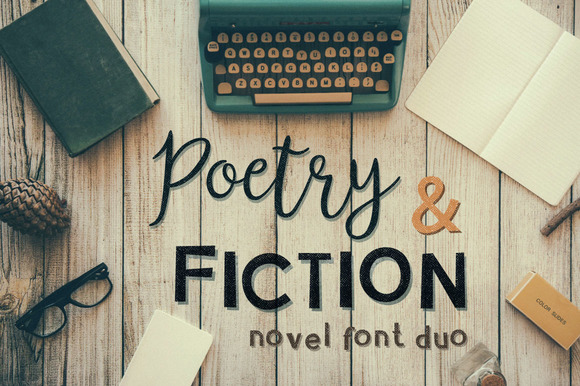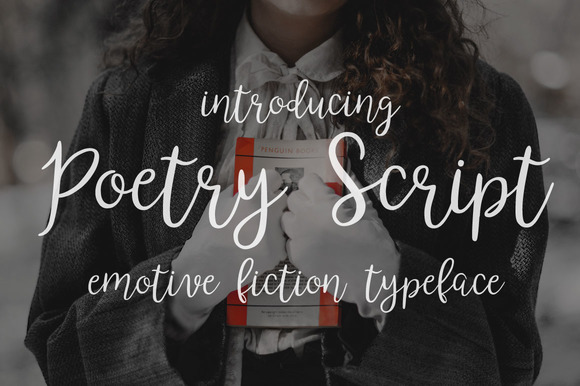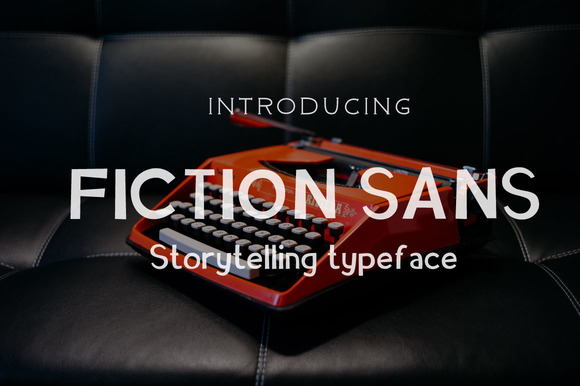
About Poetry & Fiction Font
Our little creative font duo loves not only reading, but also writing prose and poetry. We decided to make a font for the people who cannot imagine a life without fiction.
You will receive 2 fonts, a script and a sans serif. The sans serif comes with 2 different styles:
Poetry & Fiction is an emotive handwritten typeface which will help you to create a unique and sophisticated design. Fonts include multilingual support.
Poetry  &Fiction Script is a script font, inspired by the novels and poetry of the 19th century. It is perfect to use in elegant designs and vintage projects.
Poetry & Fiction Sans Serif is a sans serif font, created by cutting out letters from newspapers and stylized to create the effect of mystery and secrecy.